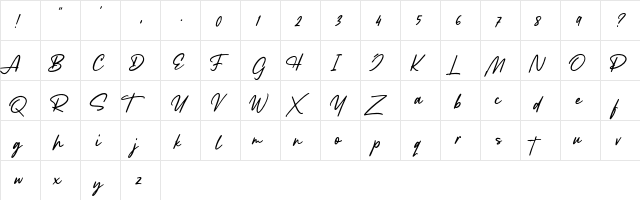
Lancaste Script Demo Regular
Regular · Runsell Studio Satia Hayu P ·
Foundry Runsell Studio
FoundryRunsell Studio
DesignerSatia Hayu P
Design Context for Lancaste Script Demo Typeface
Lancaste Script Demo flows with the natural rhythm of handwritten lettering, making it ideal for designs that call for warmth and personal expression.
Font Pairing: Combine Lancaste Script Demo with a simple geometric sans for maximum contrast — the tension between flowing curves and clean structure is a classic typographic pairing.
Pro Tip: Pair Lancaste Script Demo with a clean sans-serif for supporting text. The contrast between fluid script and geometric structure creates an elegant typographic hierarchy.